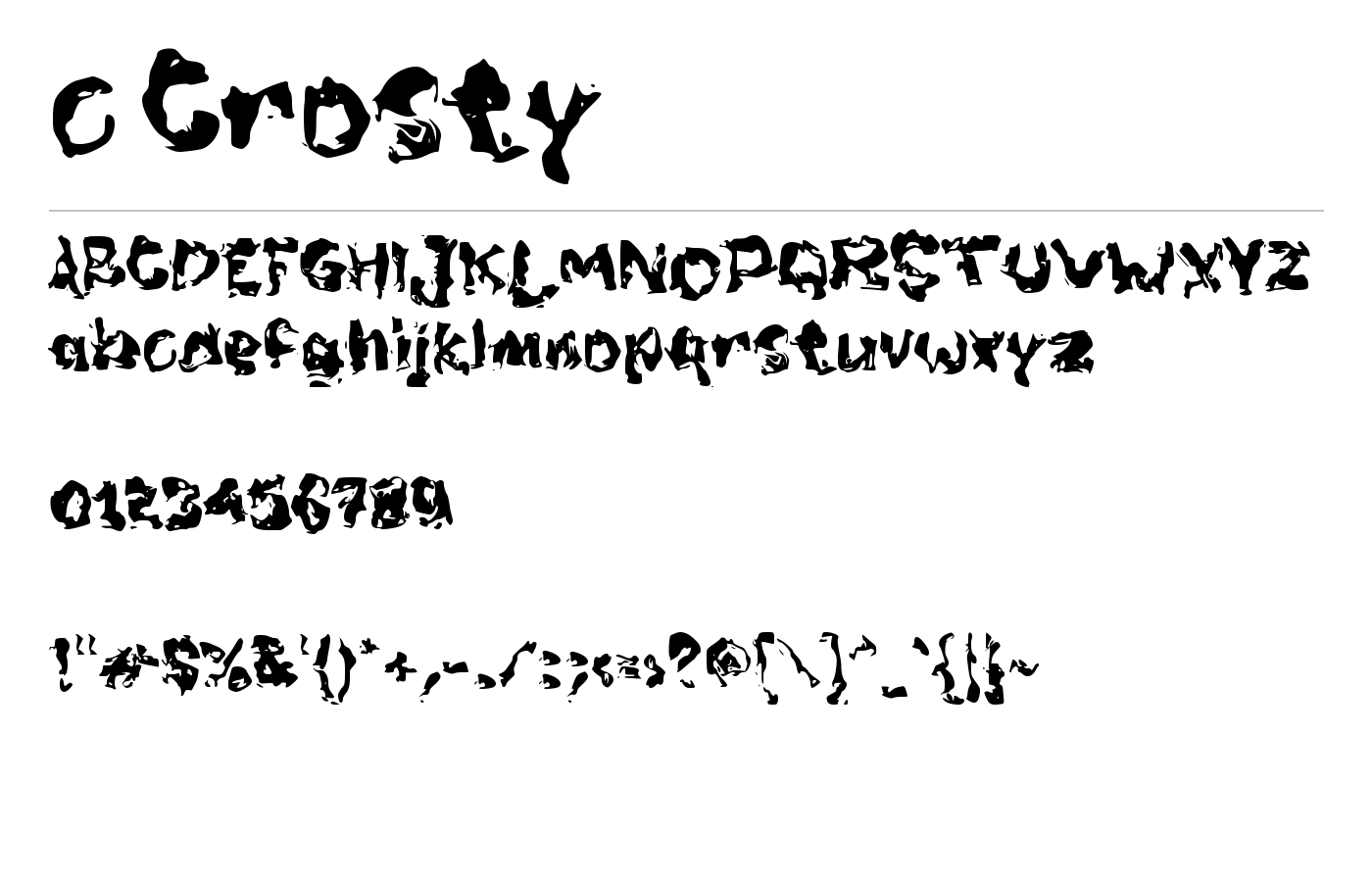
c Crosty is a bold, distressed display font with uneven, jagged edges that give it a rough, organic feel. Its irregular shapes and heavy weight make it ideal for grungy, edgy designs, perfect for posters, album covers, or branding that needs a rebellious, raw character. This font stands out with its chaotic texture, adding a unique, artistic vibe to creative projects.
c Crosty Font
About c Crosty Font